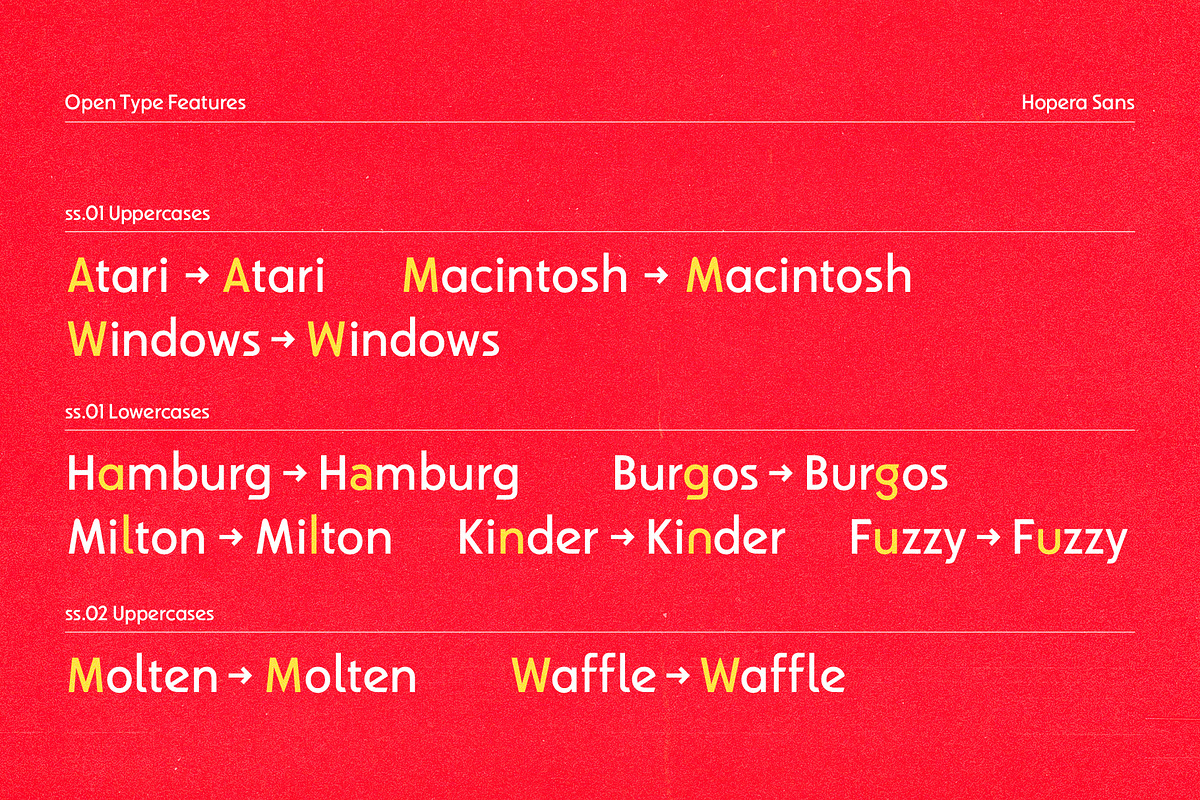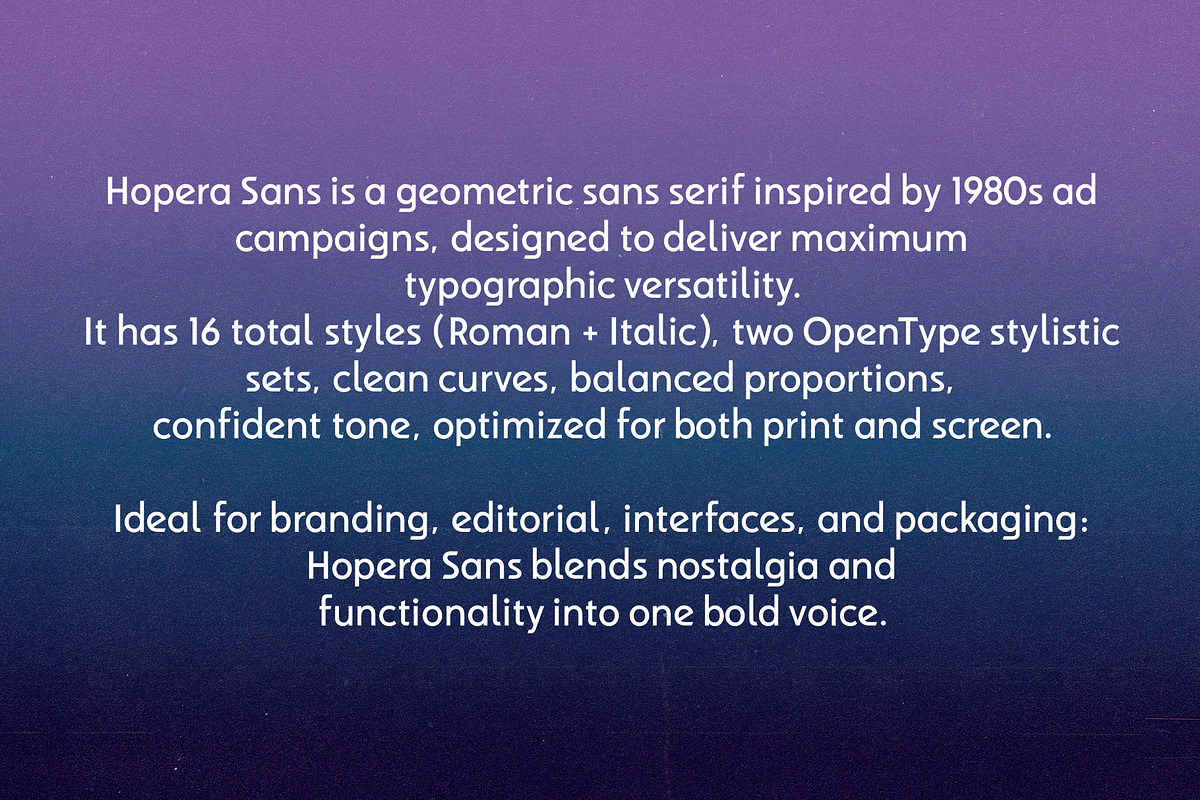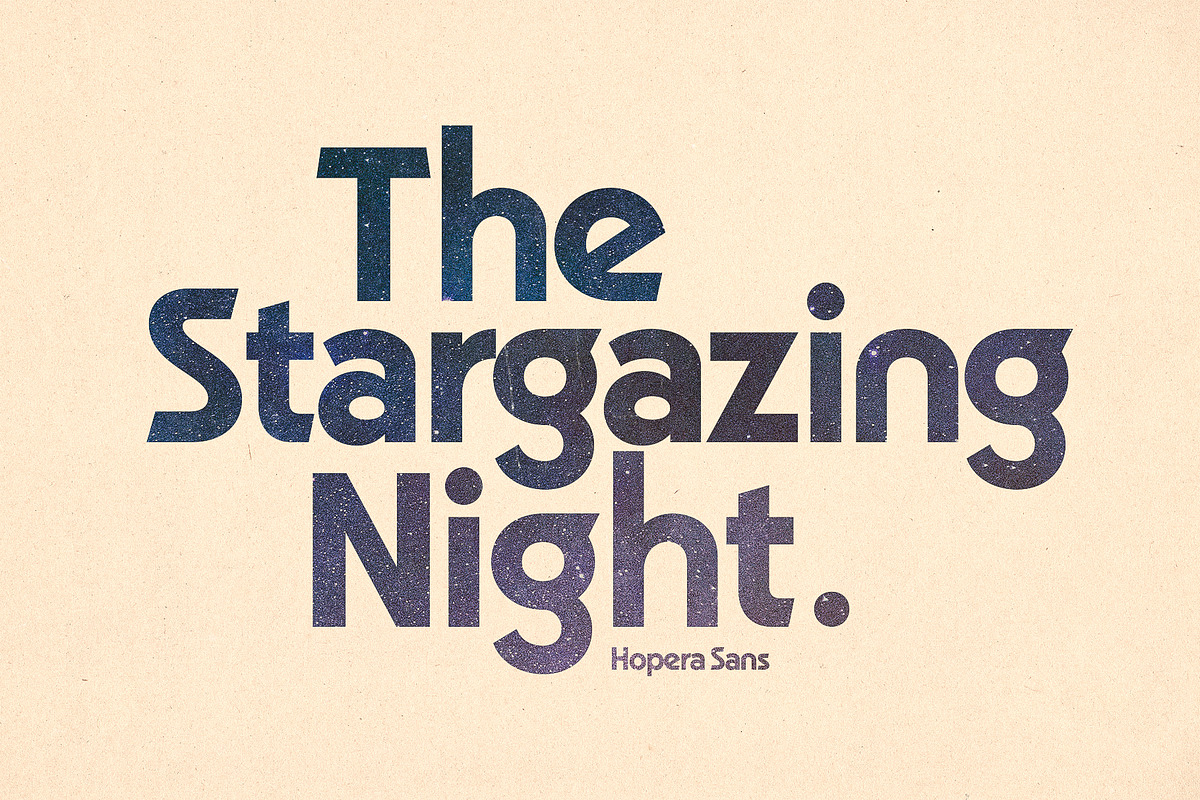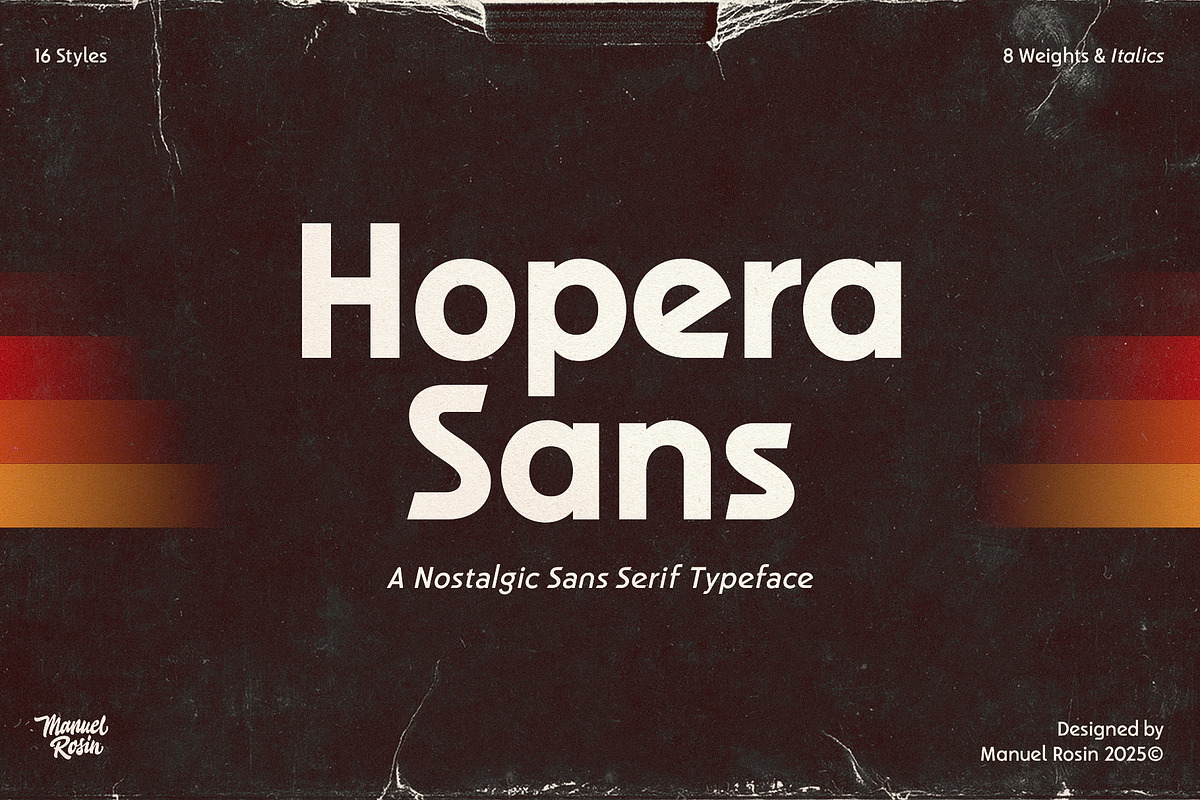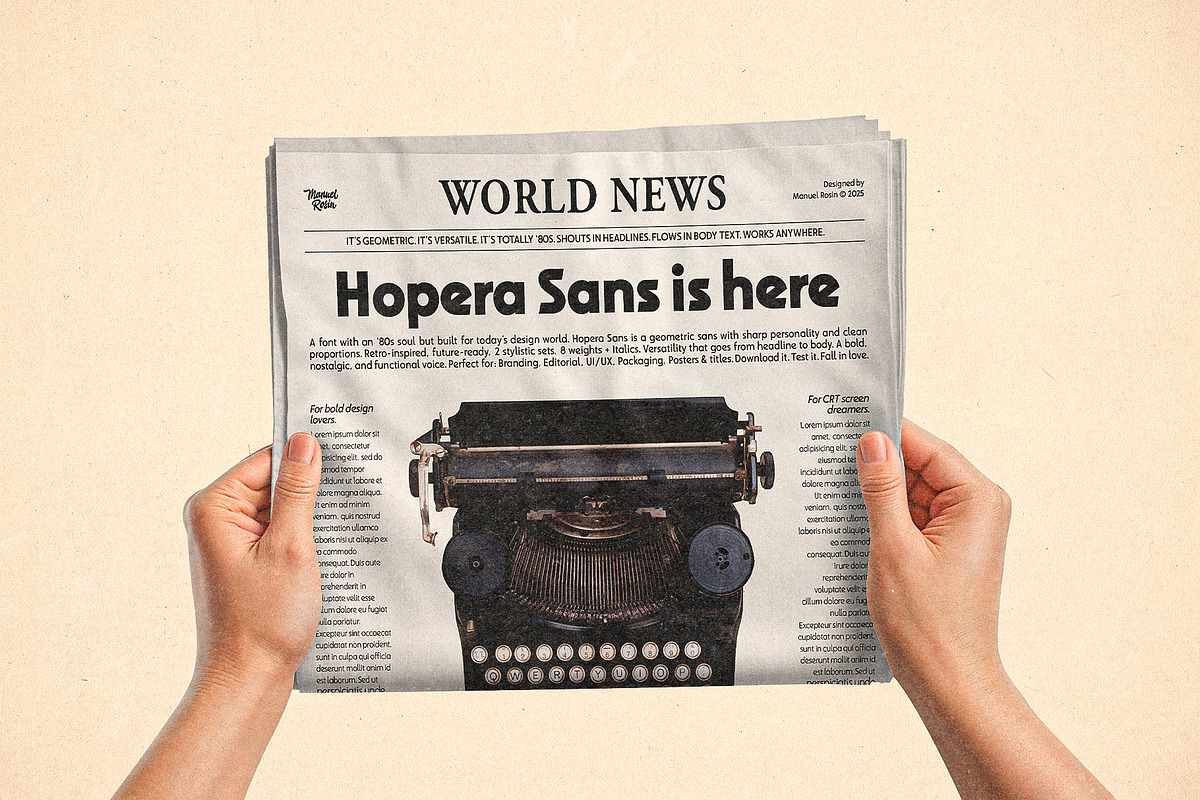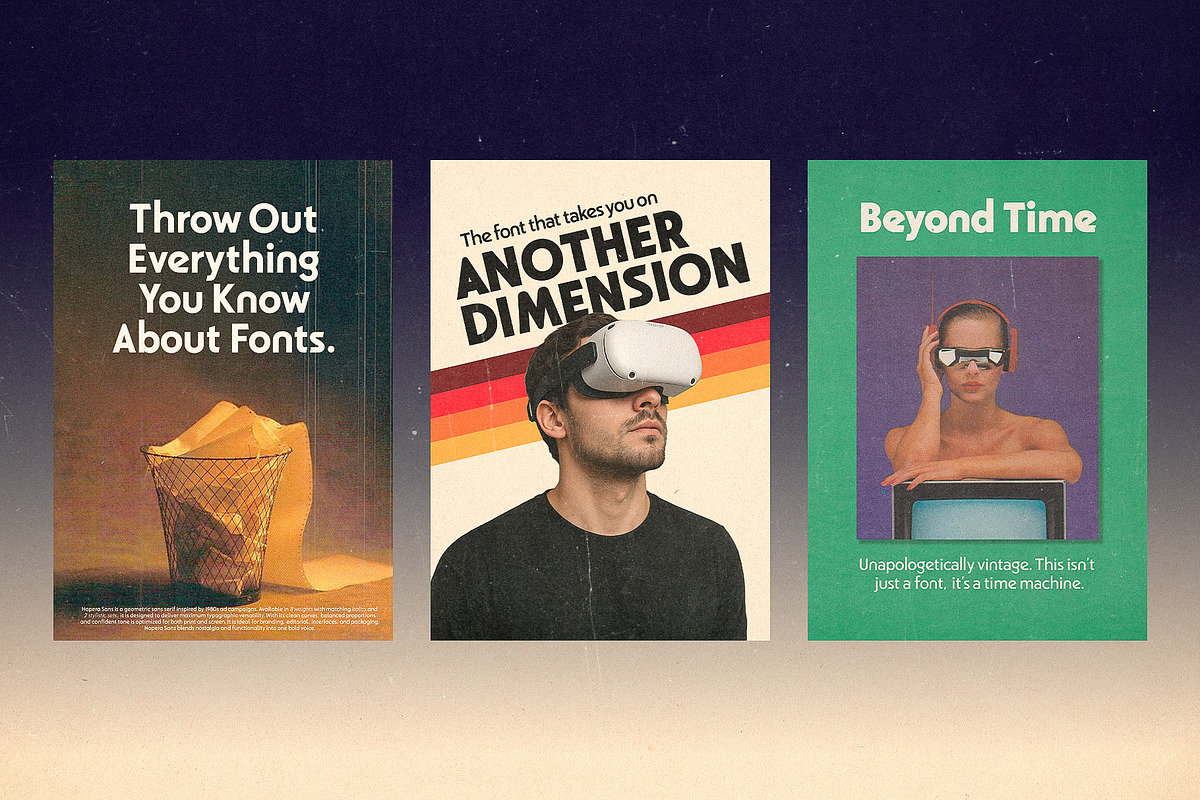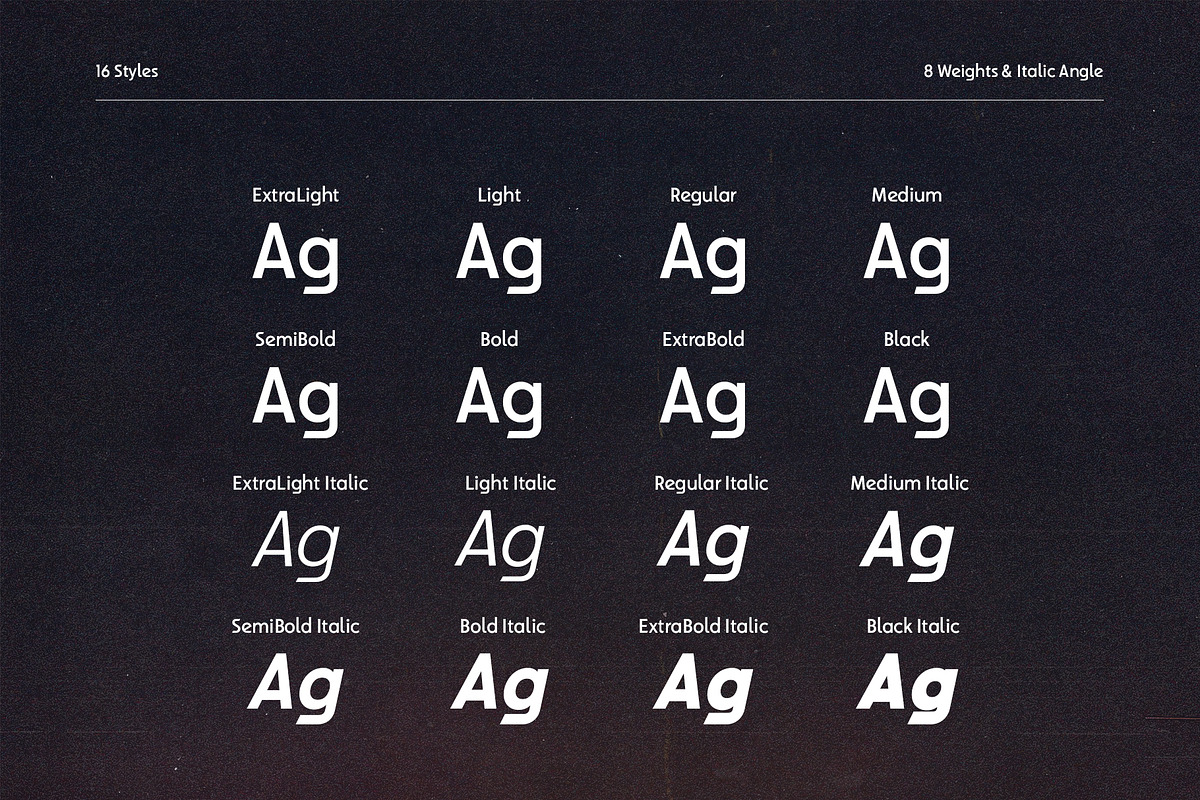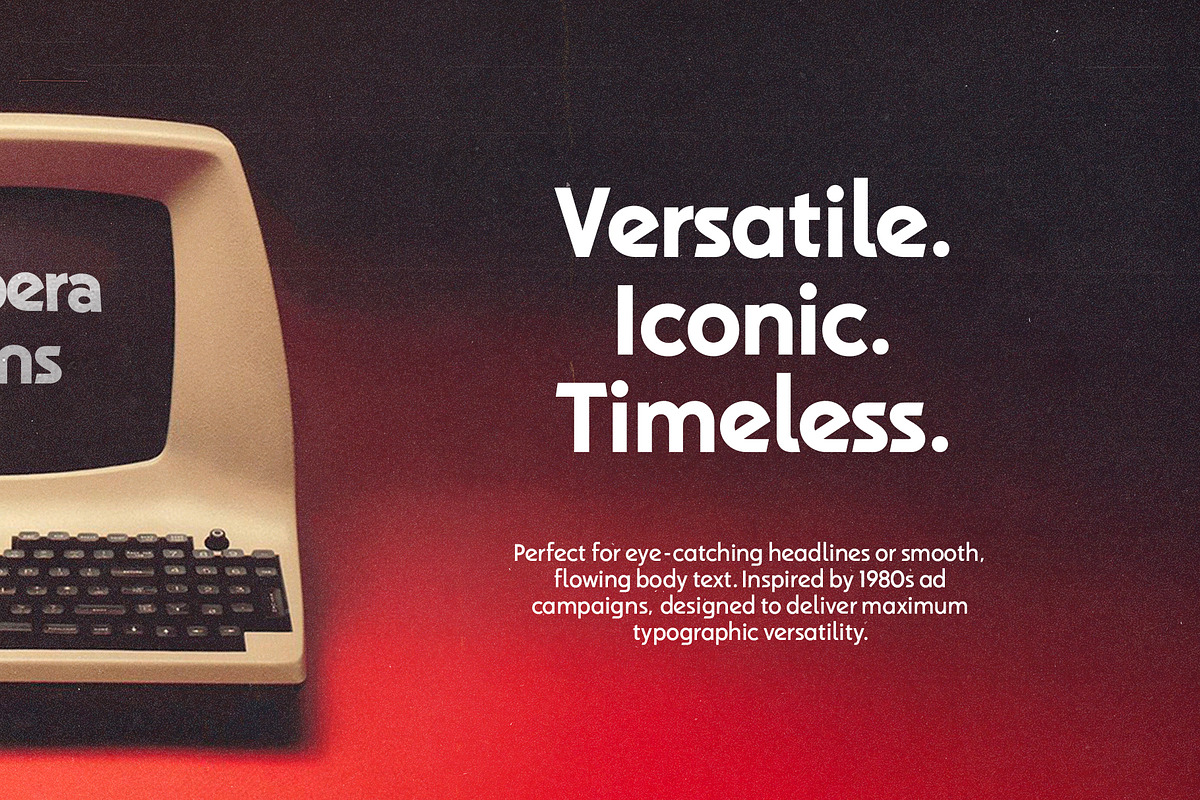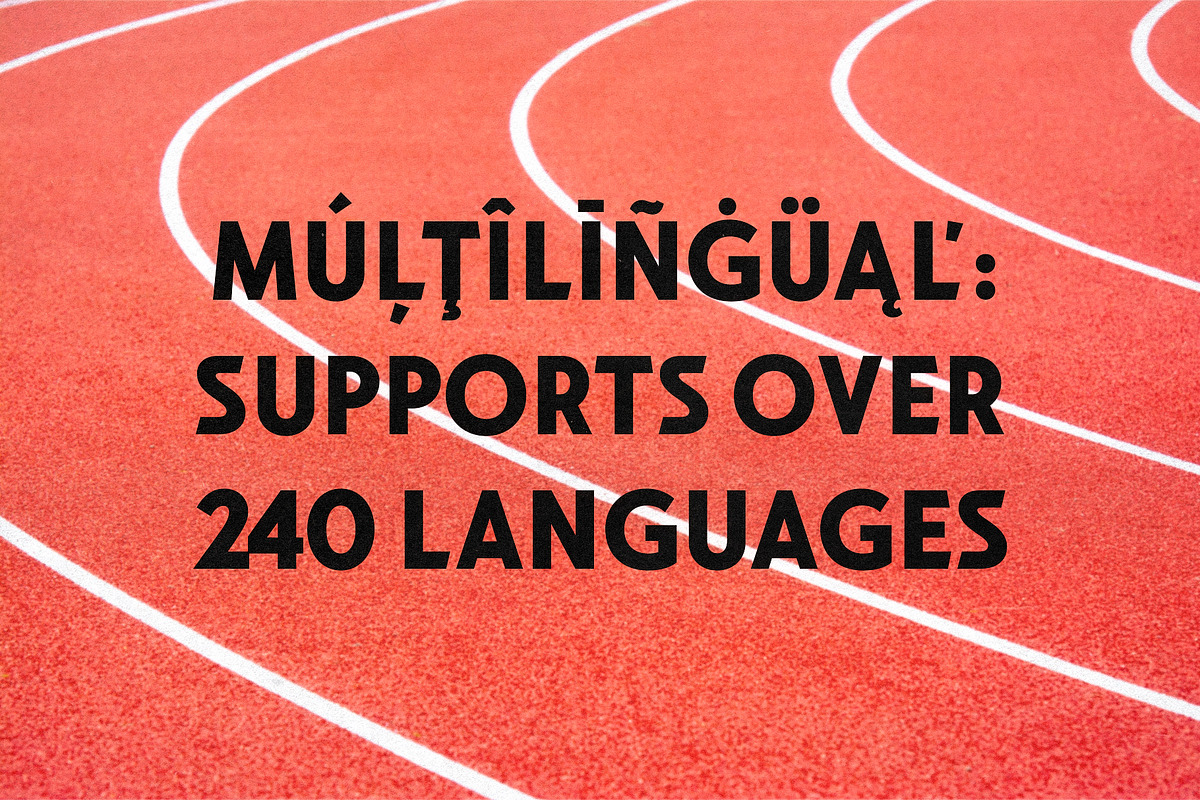
Hopera Sans - Geometric Font
Hopera Sans is a geometric sans serif typeface inspired by the bold visual language of 1980s advertising, designed to blend typographic precision with strong visual character. Featuring eight weights with matching Italics and two alternate stylistic sets, it offers a high level of versatility — making it ideal for impactful headlines as well as extended body copy. Its clean forms, balanced construction, and retro edge make it a perfect fit for branding, editorial design, packaging, and digital interfaces.
Hopera Sans is fully optimized for both print and screen, with full Latin support and subtle details that nod to the past without compromising modern functionality. A font that doesn’t follow trends — it sets them.
- 16 Styles
- 240+ Language support
- Alternative Style Set
- Italic Angle